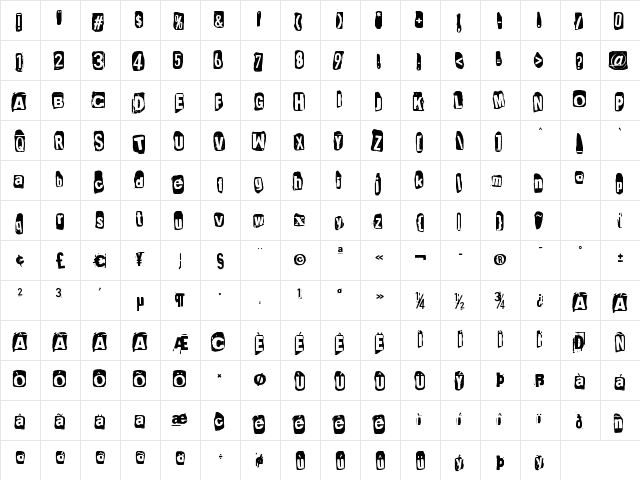
Punk'snotdead Regular
Design Context for Punk'snotdead Typeface
Punk'snotdead is a composed and adaptable typeface that performs quietly and consistently across a wide range of design contexts.